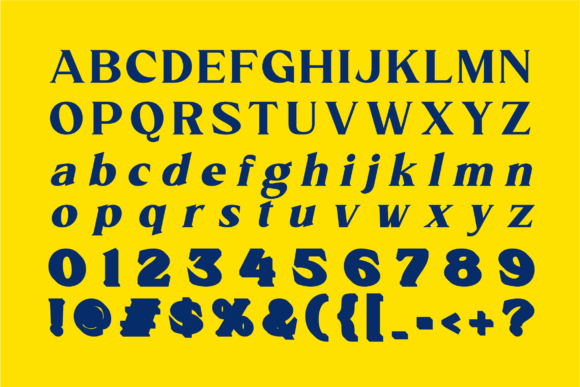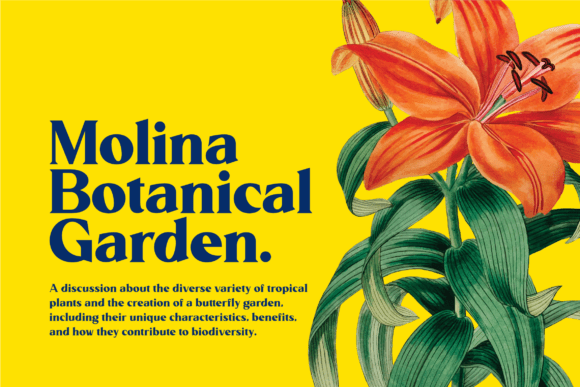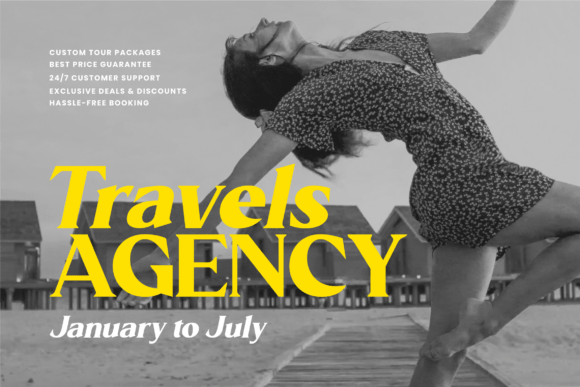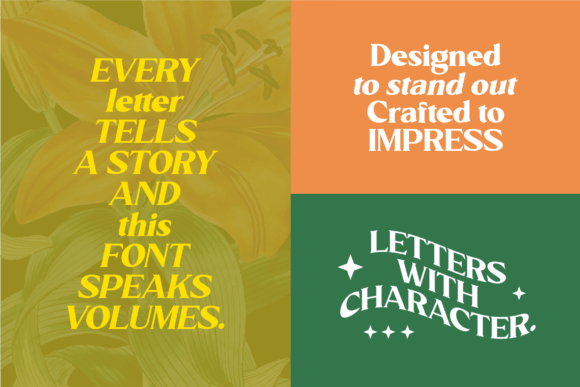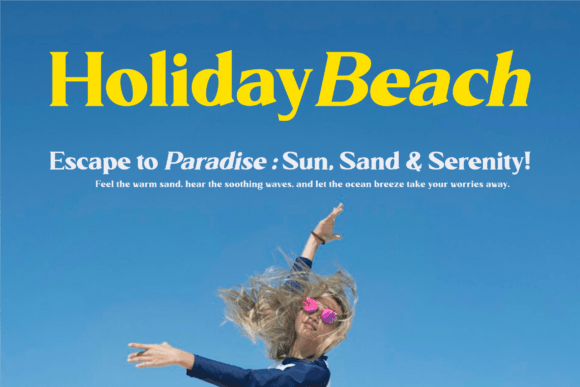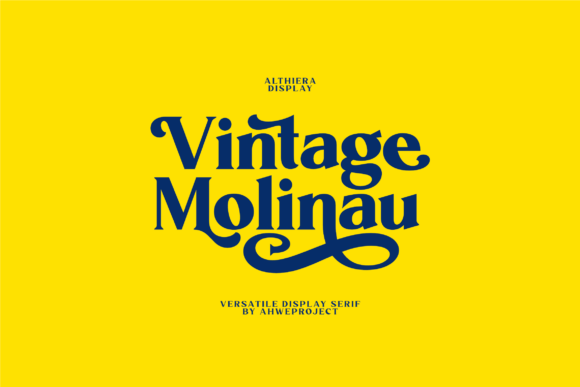
Introducing Althiera Font: Elevate Your Designs with Timeless Elegance
In the world of typography, a font can make all the difference in creating a lasting impression. For designers and crafters seeking to add a touch of sophistication and boldness to their projects, Althiera Font is an exceptional choice. This captivating serif display font is meticulously crafted to make a statement, boasting strong, bold strokes and elegant curves that instantly grab attention.
The Perfect Blend of Strength and Elegance
Althiera Font is designed to cater to a wide range of design needs, from eye-catching headlines and branding projects to logos and editorial designs. Its clean lines and distinctive style ensure that your creations stand out from the crowd, exuding a sense of confidence and professionalism. Whether you’re aiming for a vintage look, modern elegance, or creative flair, Althiera offers the versatility to achieve your desired outcome.
Multiple Variations for Endless Creativity
One of the standout features of Althiera Font is its range of variations, including Regular, Slant, and Extrude. This flexibility allows designers to experiment with different styles and tones, ensuring that their projects are always fresh and engaging. The Regular version offers a classic, straightforward approach, while the Slant variation adds a touch of dynamism and creativity. For those looking to push the boundaries, the Extrude version provides a unique, three-dimensional effect that adds depth and intrigue.
Applications for Althiera Font
The versatility of Althiera Font makes it suitable for a variety of applications. Here are a few ideas to get you started:
- Headlines and Titles: Use Althiera to create bold, attention-grabbing headlines that set the tone for your content.
- Branding and Logos: Establish a strong brand identity with Althiera’s distinctive style, perfect for logos, business cards, and letterheads.
- Editorial Designs: Elevate your editorial projects, such as magazines, newspapers, and blogs, with Althiera’s elegant and readable font.
- Advertising and Marketing: Make your advertisements and marketing materials stand out with Althiera’s bold and captivating font.
Why Choose Althiera Font?
With so many fonts available, why choose Althiera? Here are a few compelling reasons:
- Unique Style: Althiera’s distinctive serif design sets it apart from more common fonts, ensuring your projects are always memorable.
- High Versatility: With multiple variations, you can adapt Althiera to suit a wide range of design needs and styles.
- Ease of Use: Althiera is easy to read and works well in both digital and print formats, making it a practical choice for various applications.
- Timeless Appeal: Unlike trendy fonts that may quickly become outdated, Althiera’s classic design ensures it remains stylish for years to come.
Althiera Font is a powerful tool for designers and crafters looking to elevate their projects with a touch of elegance and boldness. Its captivating serif design, multiple variations, and versatility make it an ideal choice for a wide range of applications. Whether you’re creating headlines, branding materials, or editorial designs, Althiera offers the perfect blend of strength and sophistication. Add Althiera to your design toolkit today and bring your creative projects to life with timeless charm and maximum impact.